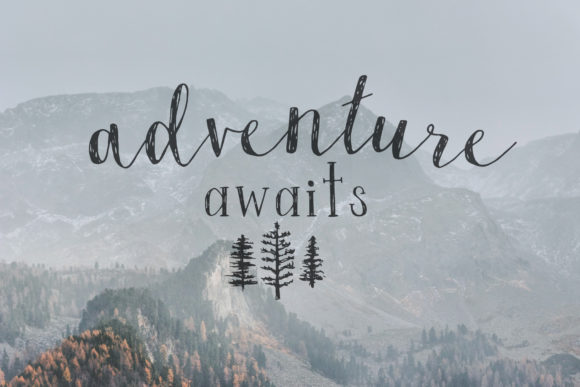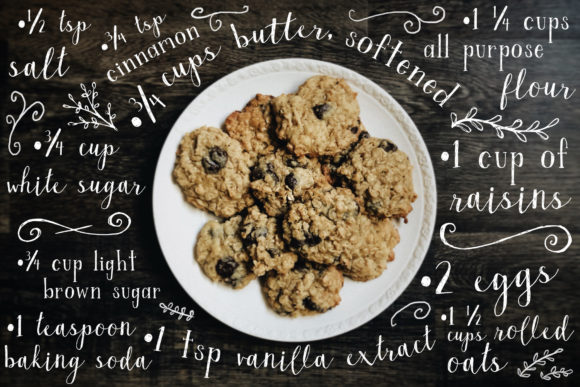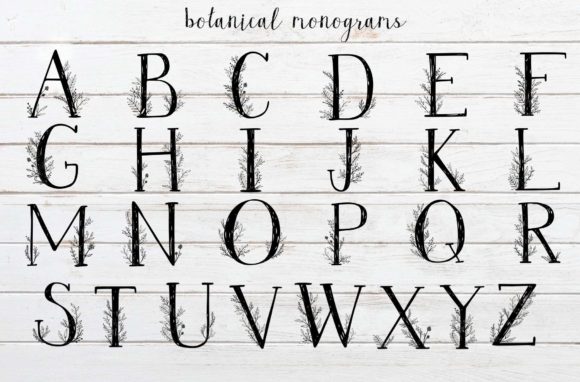
Oatmeal Raisin Duo Font
Oatmeal Raisin is a rustic handwritten and serif duo font inspired by the feeling of a fall afternoon and the smell of warm cookies baking in the oven. Each letter is hand-drawn with an ink pen and retains the texture and imperfections created by the pen on paper.